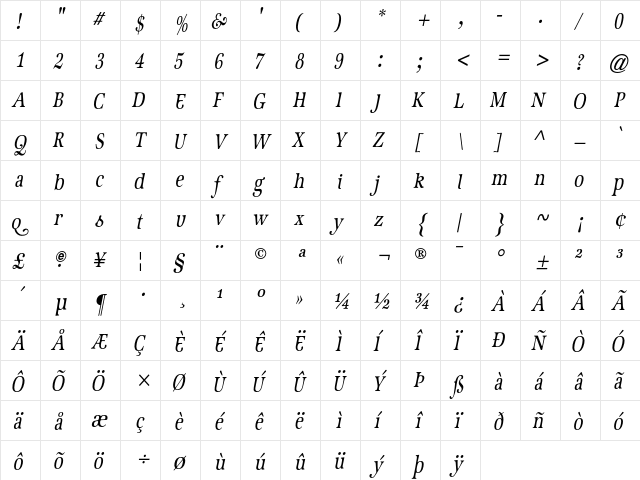
GeistItalic Regular
Design Context for GeistItalic Typeface
GeistItalic takes a measured approach to typography — its balanced proportions and neutral character make it a reliable workhorse for both digital and print work. The slanted form adds forward momentum and visual energy.